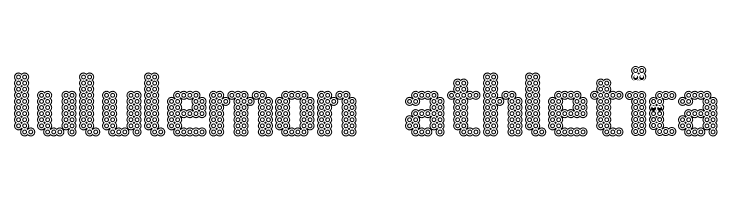
Bigetons Regular Font
- Font: Bigetons Regular
A playful, bubble-like decorative font with interconnected circular elements.
( Font by Sven Stuber - www.superlooper.de )